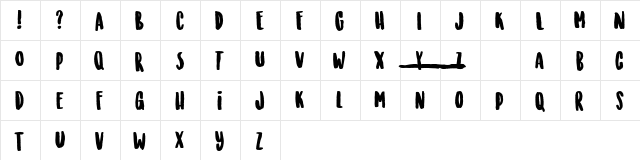
Sunrise International Demo Regular
Design Context for Sunrise International Demo Typeface
Sunrise International Demo is a composed and adaptable typeface that performs quietly and consistently across a wide range of design contexts.